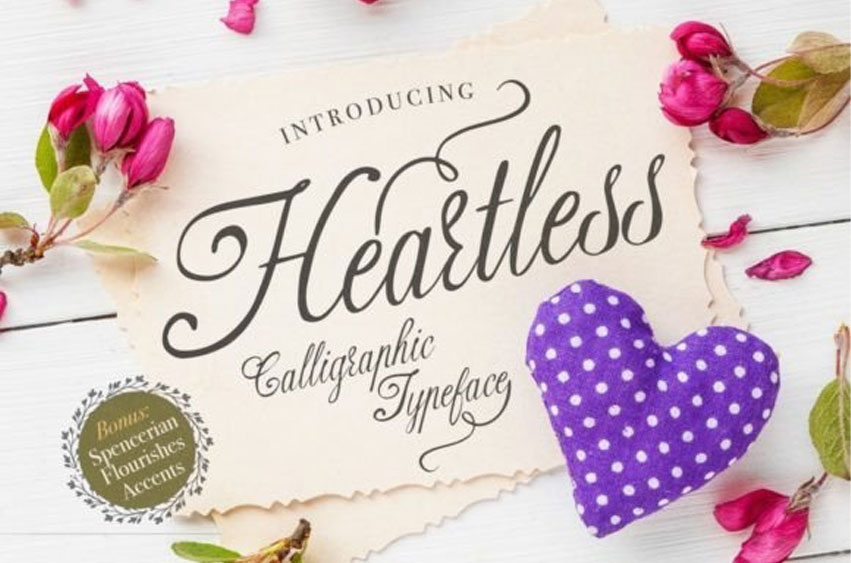
Heartless Calligraphy Font
Heartless Calligraphy Font feels equally charming and elegant.
It looks stunning on wedding invitations, thank you cards, quotes, greeting cards, logos, business cards, and every other design that needs a handwritten touch.